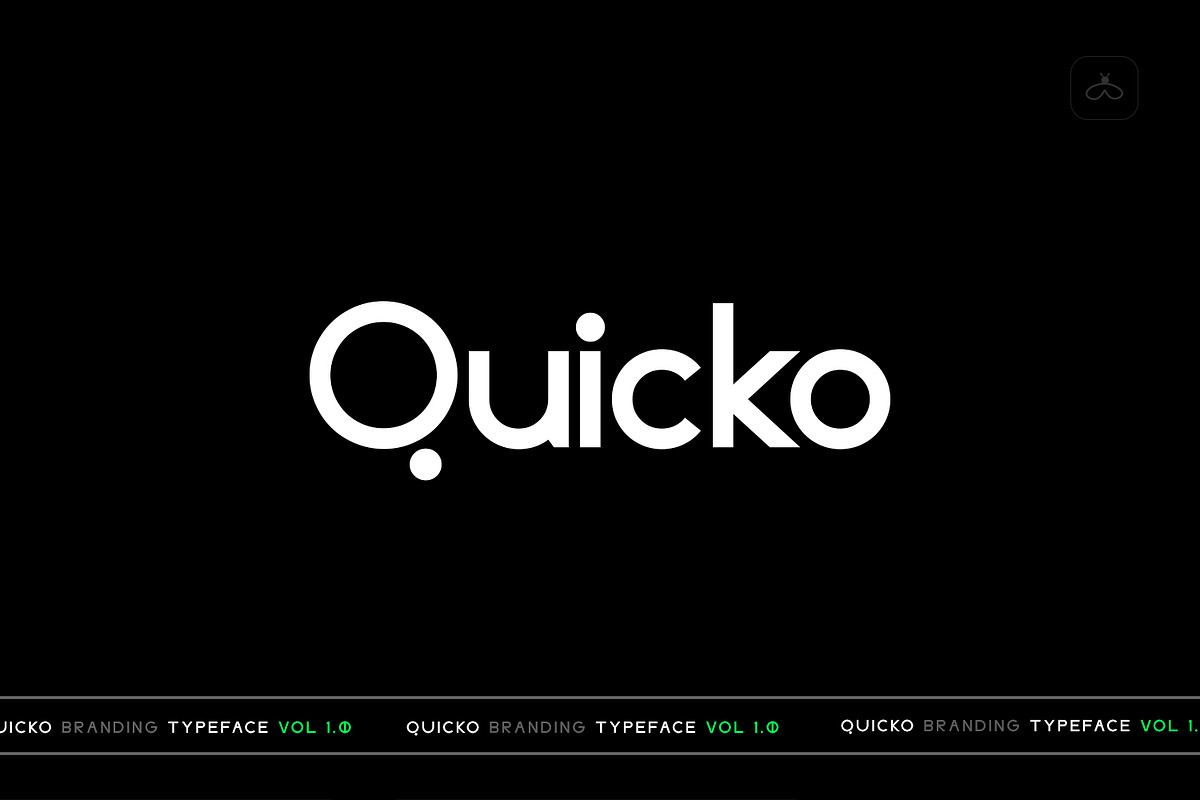
Quicko Display Typeface Free Download
The Quicko Display Typeface Free Download is a bold and contemporary typeface designed to make your designs stand out with its unique, eye-catching style. Featuring clean lines and strong, distinctive letterforms, this font is perfect for creating impactful headlines, logos, posters, and branding materials. Whether you're working on a creative project, promotional campaign, or modern brand identity, Quicko brings a fresh and dynamic look to your designs.
Quicko Display Typeface Free Download is ideal for designers looking to add bold, high-visibility typography to their work. Perfect for digital media, branding, and advertising, this font will help your designs stand out. Download it today and bring a sharp, modern edge to your creative projects with Quicko!